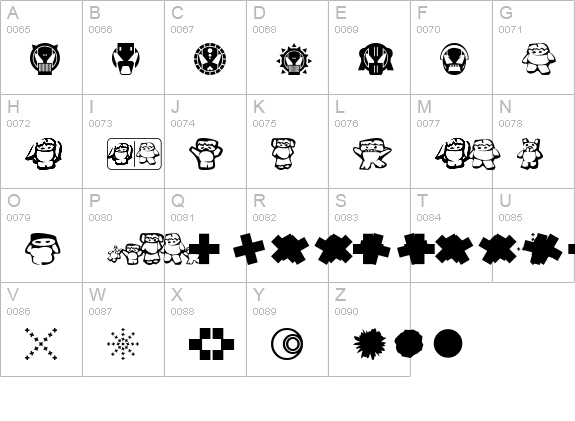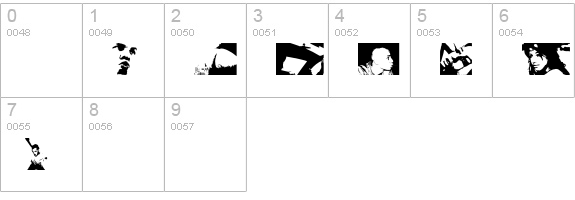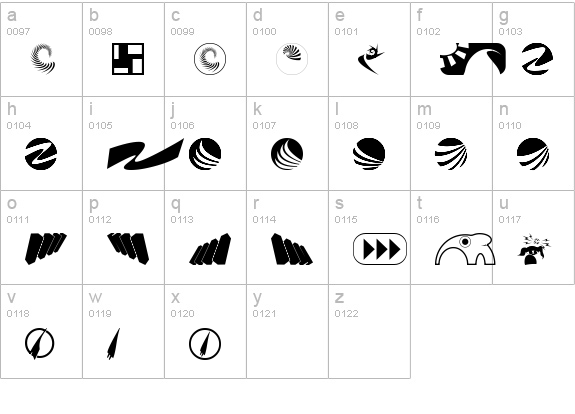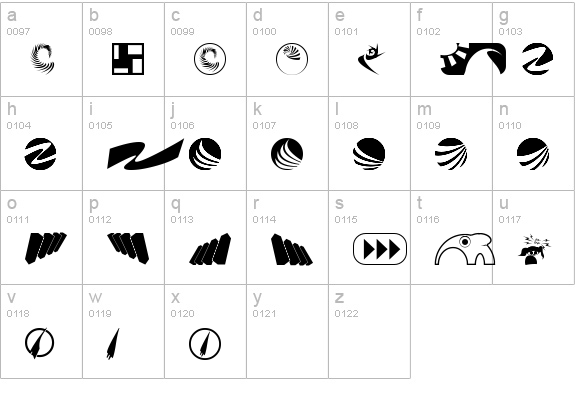
klozzbats Font Details
Introducing Klozzbats, a captivating and versatile font that will add a touch of sophistication and playfulness to any design project. With its unique blend of bold lines and elegant curves, Klozzbats is perfect for everything from logos and branding to invitations and social media graphics. This one-of-a-kind font offers a vast array of characters, ensuring that you'll find the perfect fit for every letter and symbol. From its eye-catching uppercase letters to its delicate and intricate lowercase characters, Klozzbats showcases a stunning level of attention to detail that will surely leave a lasting impression. But what sets Klozzbats apart from other fonts on the market is that it is completely free to download. Yes, you read that right! This remarkable font is freely available at FontsMarket.com, allowing you to enhance your creative projects without breaking the bank. Whether you're a professional designer looking to add a unique and captivating element to your work or a hobbyist seeking to elevate your personal projects, Klozzbats is the font for you. Its versatility and timeless appeal make it suitable for any occasion, ensuring that your designs will stand out from the crowd. Don't miss out on this incredible opportunity to enrich your creative endeavors with the stunning Klozzbats font. Download it for free today at FontsMarket.com and unlock a world of endless design possibilities. Let's bring your vision to life with Klozzbats!